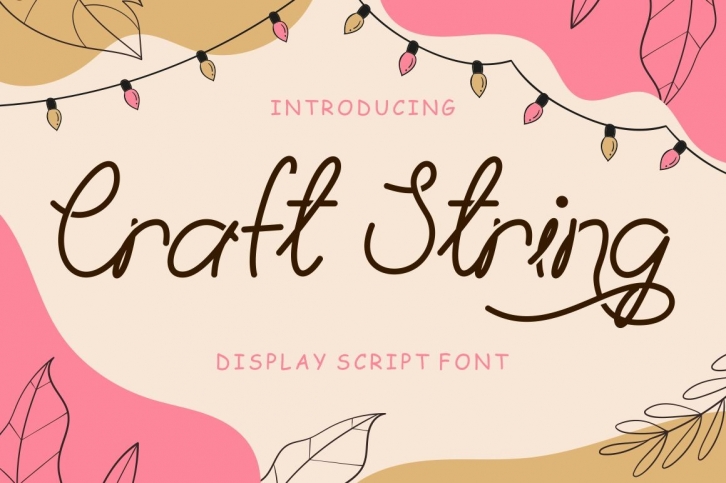
Craft String is a distinct and beautiful script font. Fall for its ravishing style and use it to create gorgeous designs. This font is PUA encoded which means you can access all glyphs and swashes with ease!